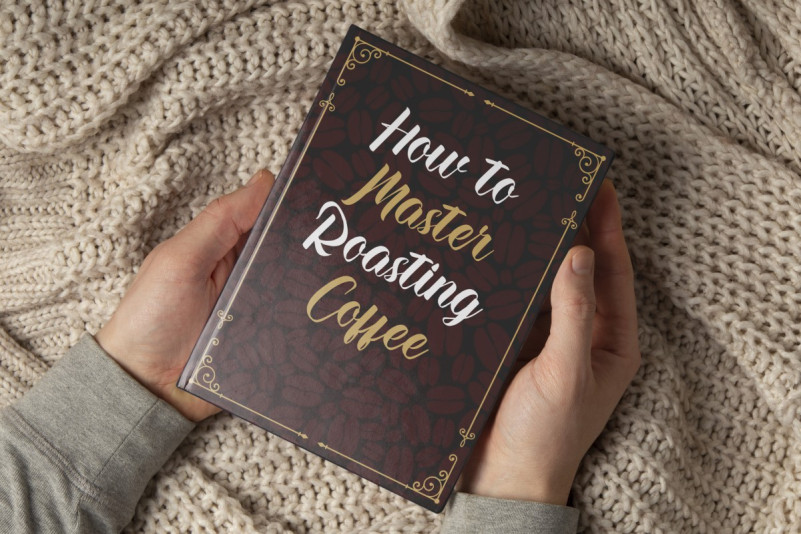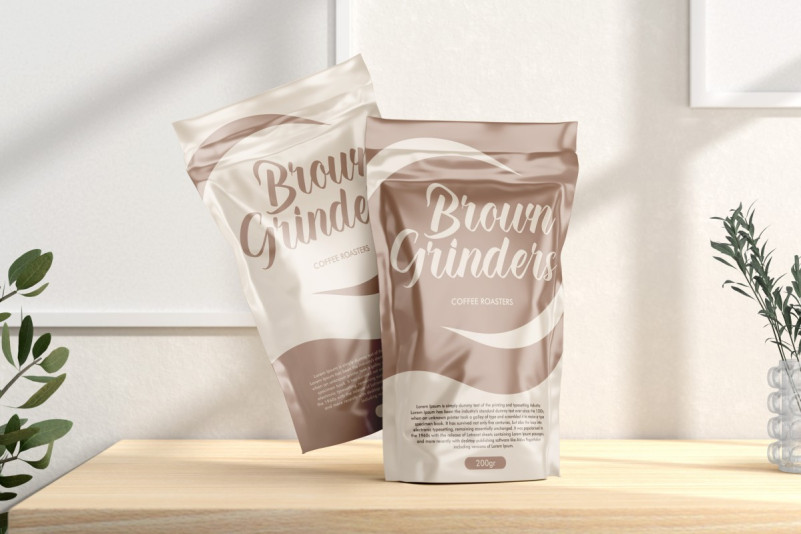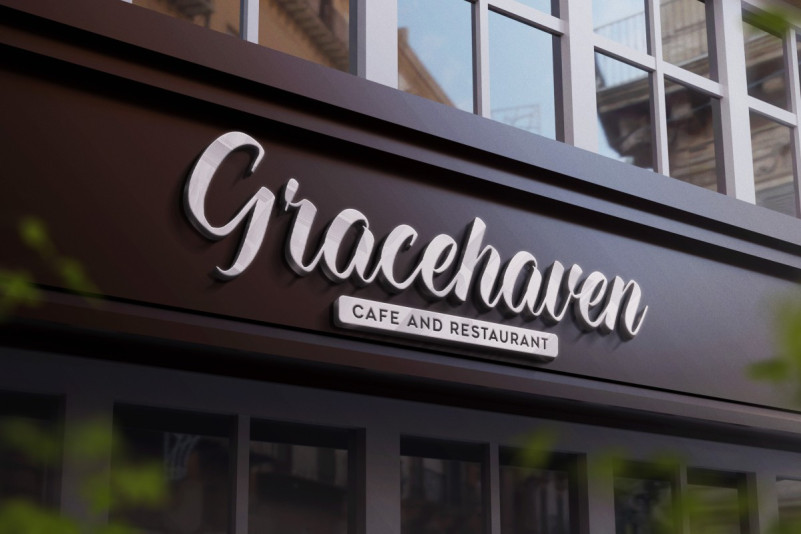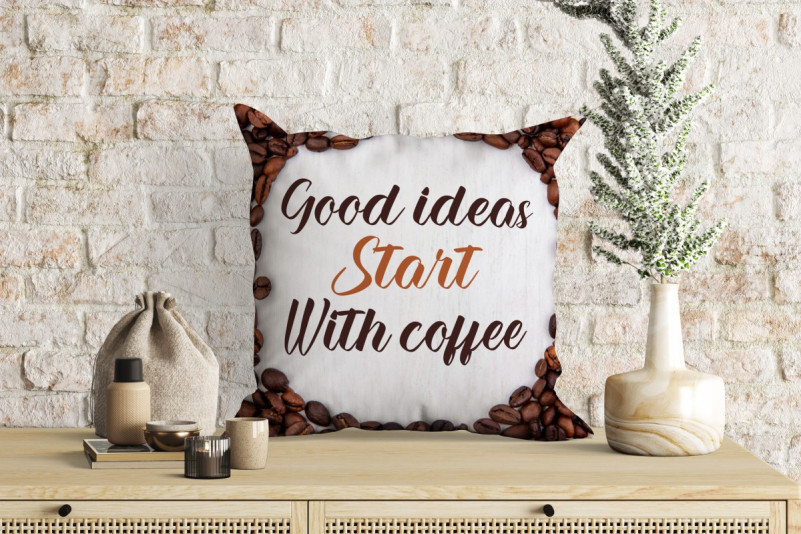
Dramatic Latte Font
Dramatic Latte Script Font is a casual and stylish calligraphic font from EdricStudio. This font is perfectly crafted and easy to read so it will be suitable for any industry such as, accessories, author, café, event organizer, handicraft, homeware, photography, printing, publishing, restaurant, and anything that requires an awesome handwriting look.
Dramatic Latte Font comes with a full set of Uppercase and Lowercase Basic Characters, Number, a large range of Punctuation and Symbol, also has a Ligature characters which makes this font look perfectly bound. It has a stunning characters set, perfectly managed with well spaced and kerning. Dramatic Latte Font will be great for any projects (with extended license) including : billboard, brand logo, cover, header, label, product packaging, quote, screen print, signage, etc.